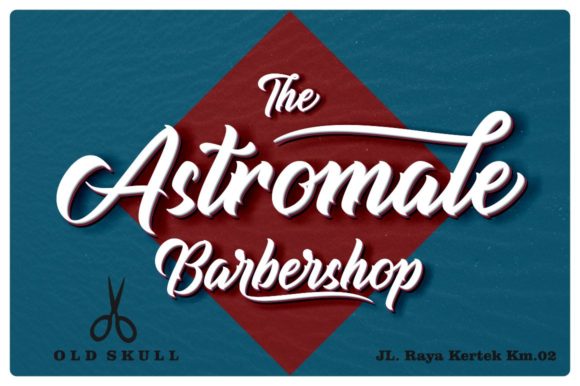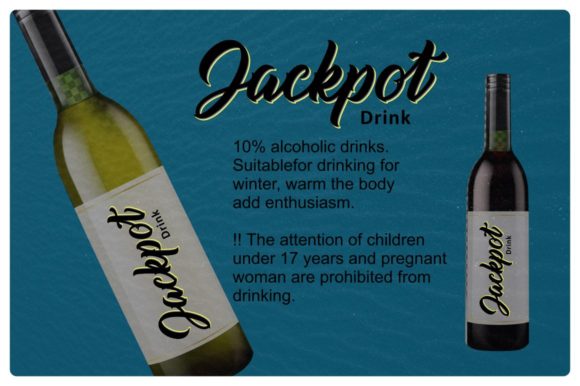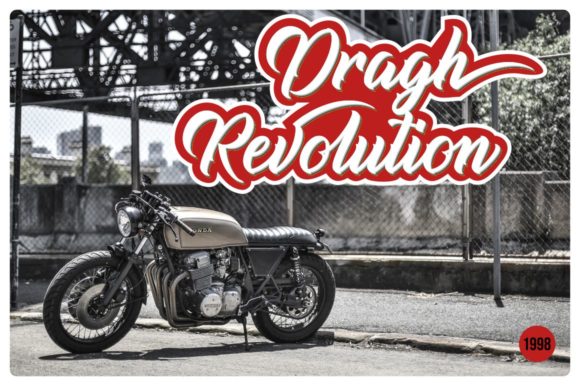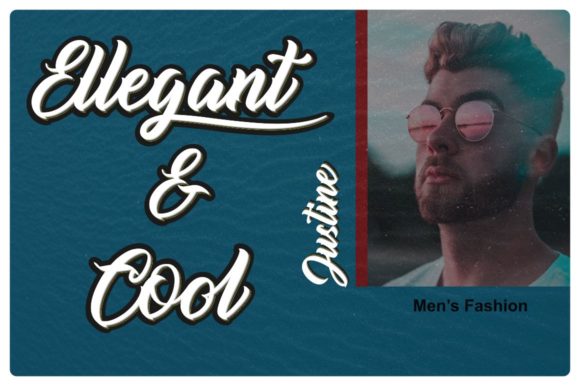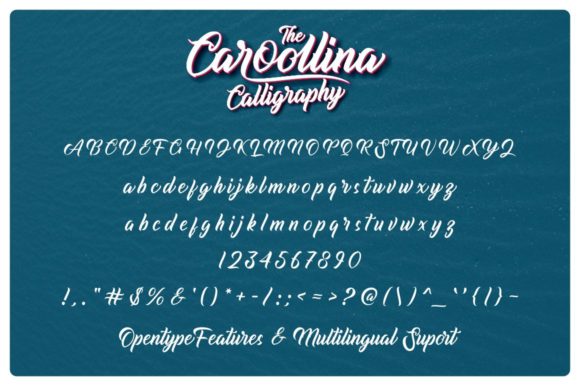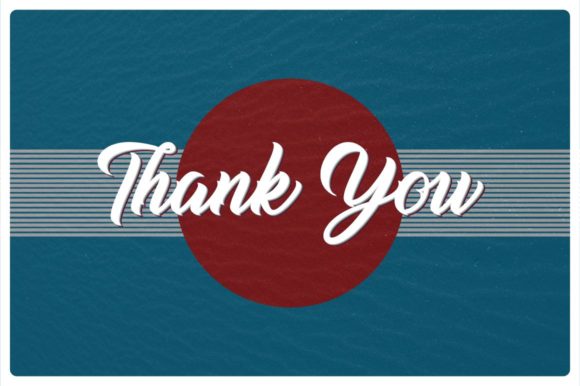
Caroollina Font: The Ultimate Handwritten Font for Elegant Designs
In the world of typography, a good font can make all the difference in creating a lasting impression. For designers, crafters, and DIY enthusiasts, finding the perfect font that combines elegance and uniqueness can be a daunting task. However, with the introduction of Caroollina Font, the search is over. This exceptional handwritten font simplifies elegance into one truly outstanding design, perfect for logos, branding, social media, and crafty DIY projects.
What Makes Caroollina Font Stand Out?
Caroollina Font is a beautifully crafted handwritten font that exudes sophistication and style. Its unique charm lies in its effortless flow and natural curves, making it perfect for designs that require a personal touch. Whether you’re creating a logo, branding materials, or social media graphics, Caroollina Font is sure to elevate your design to the next level.
Key Features of Caroollina Font
- Handwritten Elegance: Caroollina Font boasts a beautiful, handwritten design that adds a touch of elegance to any project.
- Versatility: This font is perfect for a wide range of applications, including logos, branding, social media graphics, and DIY projects.
- Easy to Read: Despite its elegant design, Caroollina Font remains highly legible, making it suitable for both headings and body text.
- Unique Character: The font’s unique character and charm ensure that your designs stand out from the crowd.
Caroollina Font is a dream come true for designers and crafters who strive to create visually stunning designs. Its flexibility and versatility make it an excellent choice for:
- Logo Design: Create a lasting impression with a custom logo that showcases your brand’s personality.
- Branding Materials: Develop a consistent brand image with Caroollina Font, perfect for business cards, brochures, and more.
- Social Media Graphics: Elevate your social media presence with eye-catching graphics that feature the elegant Caroollina Font.
- DIY Projects: Add a personal touch to your crafty DIY projects, such as handmade cards, invitations, and gift tags.
Tips for Using Caroollina Font
To get the most out of Caroollina Font, consider the following tips:
- Pair with Neutral Backgrounds: Allow Caroollina Font to take center stage by pairing it with neutral backgrounds that don’t compete for attention.
- Experiment with Colors: Play with different colors to find the perfect match for your design and brand identity.
- Mix and Match: Combine Caroollina Font with other design elements, such as images and textures, to create visually appealing designs.
In conclusion, Caroollina Font is a game-changer for designers, crafters, and DIY enthusiasts looking for a truly exceptional handwritten font. Its elegance, versatility, and unique character make it the perfect fit for a wide range of design applications. With Caroollina Font, you can simplify elegance and elevate your designs to new heights.